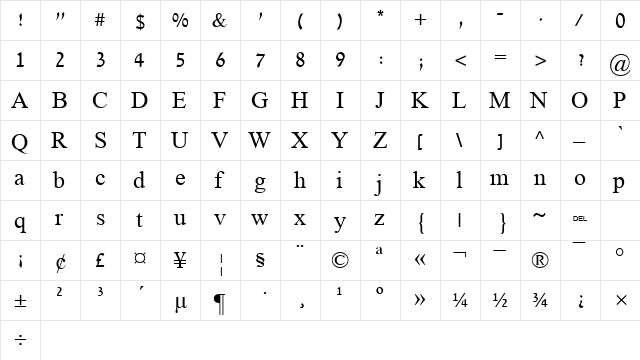
David Regular
Design Context for David Typeface
David offers clean, dependable letterforms without strong stylistic allegiance, making it a practical choice for designers who need flexibility.
Pro Tip: Pair David with a font of contrasting weight or personality to build a more expressive typographic hierarchy.